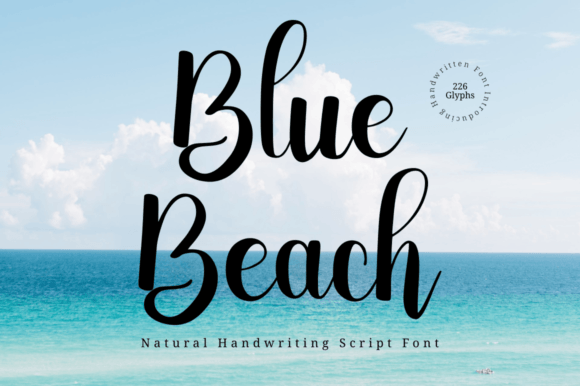
Journey into the world of elegance and style with Blue Beach Font, the ultimate fashion statement for your creative projects. This enchanting script font, handcrafted by Rissyletter Studio, captures the essence of effortless beauty and timeless sophistication.
Blue Beach Font is not just a font; it's an experience. Immerse yourself in its graceful curves and delicate strokes, evoking the allure of a seaside escape. With each letter flowing seamlessly into the next, Blue Beach Font dances across your designs, leaving a trail of visual harmony.
Fashion enthusiasts, rejoice! Blue Beach Font is your perfect companion for creating captivating designs that exude elegance and luxury. Picture your brand's logo adorned with the flowing lines of Blue Beach Font, commanding attention and leaving a lasting impression on your customers. Let your fashion designs come alive with the allure of Blue Beach Font, transforming ordinary garments into extraordinary works of art.
Beyond fashion, Blue Beach Font's versatility extends to a myriad of creative endeavors. Unleash your imagination and explore its potential in designing posters, music covers, movie titles, games, magazines, books, comics, cartoons, YouTube videos, Instagram posts, and websites. With Blue Beach Font, your creations will radiate an aura of sophistication, captivating your audience and leaving them yearning for more.
Blue Beach Font is more than just a collection of characters; it's a gateway to a world of creativity and self-expression. Its intricate details and captivating charm will elevate your designs, leaving a lasting impression on all who encounter them. Embark on this creative journey with Blue Beach Font, and let your imagination soar.